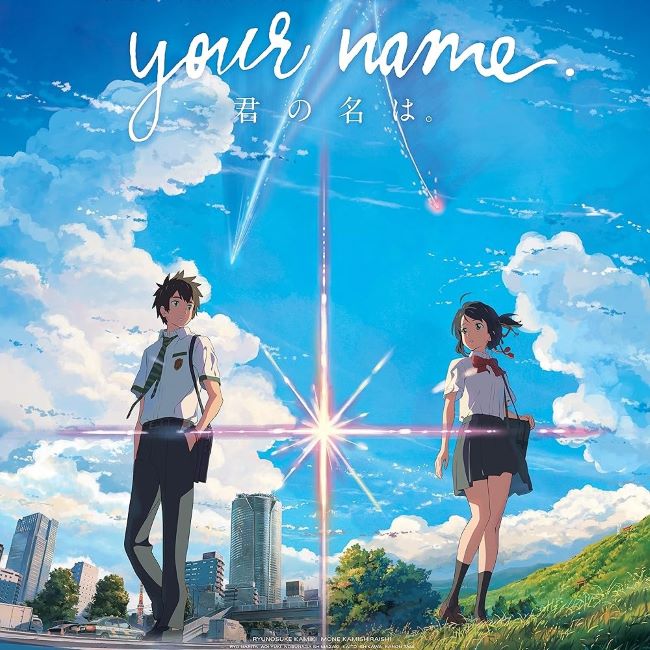
Your Name Font
Your Name Font floats between reality and dreams with ethereal letterforms that capture starlit connections across time and space. This typography breathes Shinkai’s signature aesthetic—delicate yet purposeful, blending contemporary minimalism with emotional vulnerability that mirrors the film’s exploration of destiny, longing, and souls intertwined beyond physical boundaries.
In the movie’s posters and promotional artwork, the typography is simple and understated, letting the vivid visuals and emotional story shine through. The Your Name font has a handwritten, almost calligraphic style in some adaptations, while in others it uses a neat sans-serif design that conveys clarity and purity. This balance of simplicity and emotion is what makes it so appealing for fans and designers alike.
While the exact typeface was crafted specifically for the film, there are close alternatives that evoke the same mood. Fonts like Helvetica Neue Light and Open Sans work beautifully as minimalistic options, while handwritten-style fonts such as Kozuka Gothic or Yu Mincho reflect the Japanese design influence.
Your Name Font enchants anime merchandise, romantic greeting cards, poetry collections, and contemplative app interfaces—where typography whispers rather than shouts, creating intimate connections through serene design.